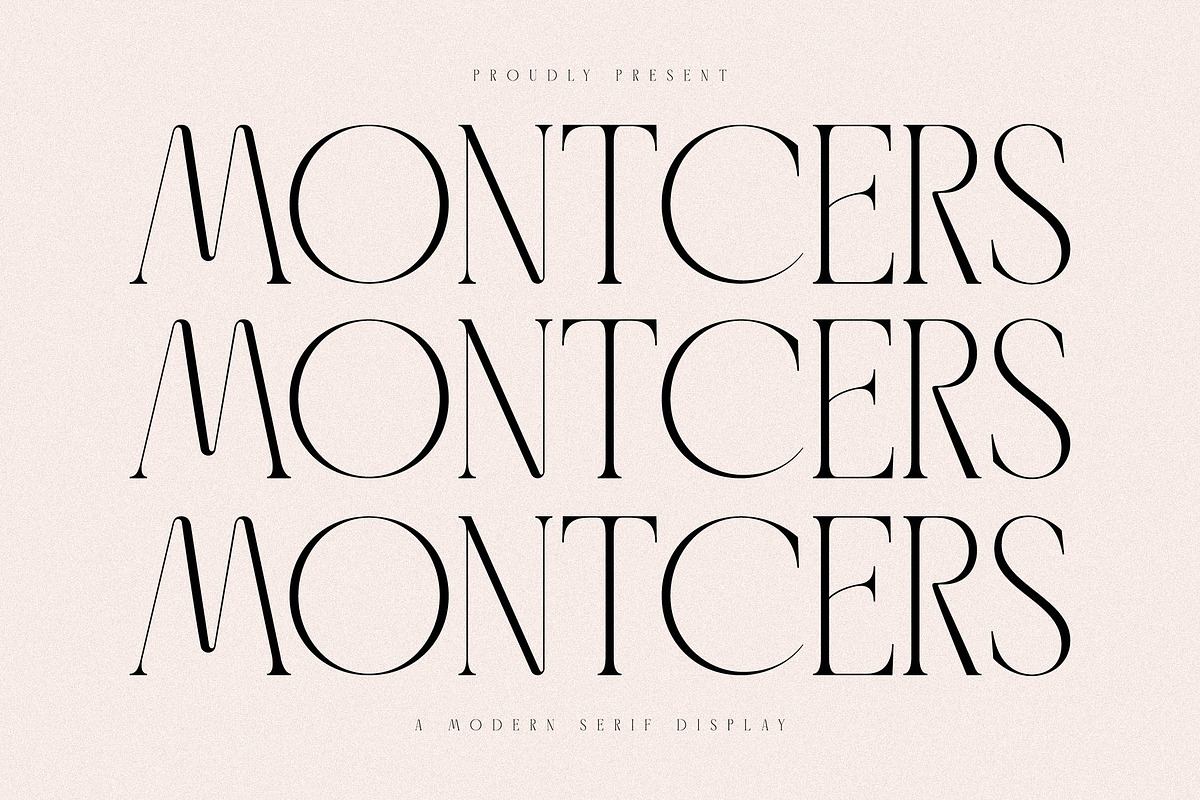
Stylish, sleek, and elevated, Montcers – A Modern Serif Font Free Download is a refined typeface that blends classic serif elegance with clean, contemporary lines. Perfect for branding, editorial layouts, packaging, social media, and fashion-forward design projects, Montcers delivers sophistication with a modern twist.
Its high-contrast strokes, smooth curves, and distinctive letterforms make Montcers ideal for headlines, logos, and upscale print work. Whether you're crafting a luxury identity or designing for a minimalist aesthetic, this font adds a polished, professional touch.